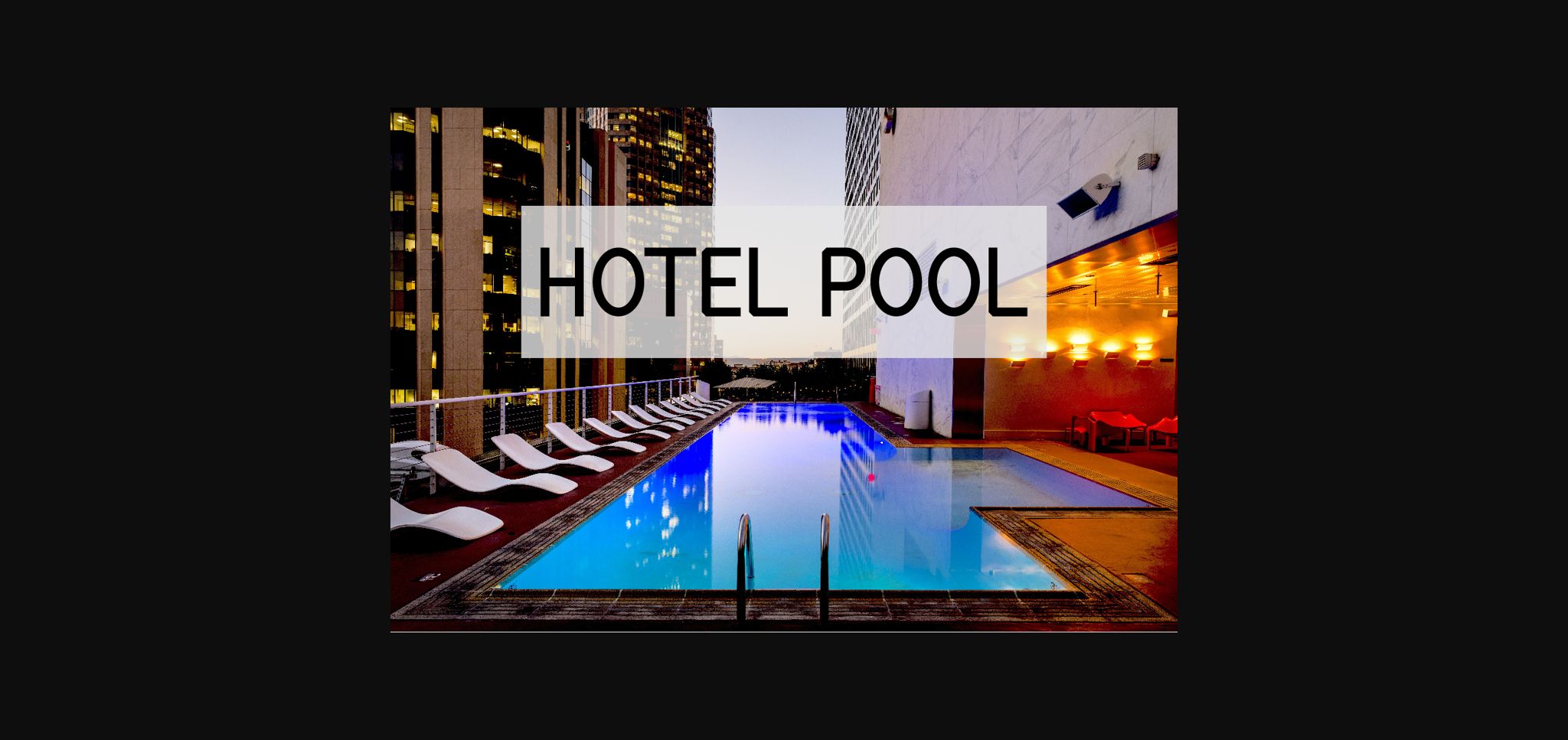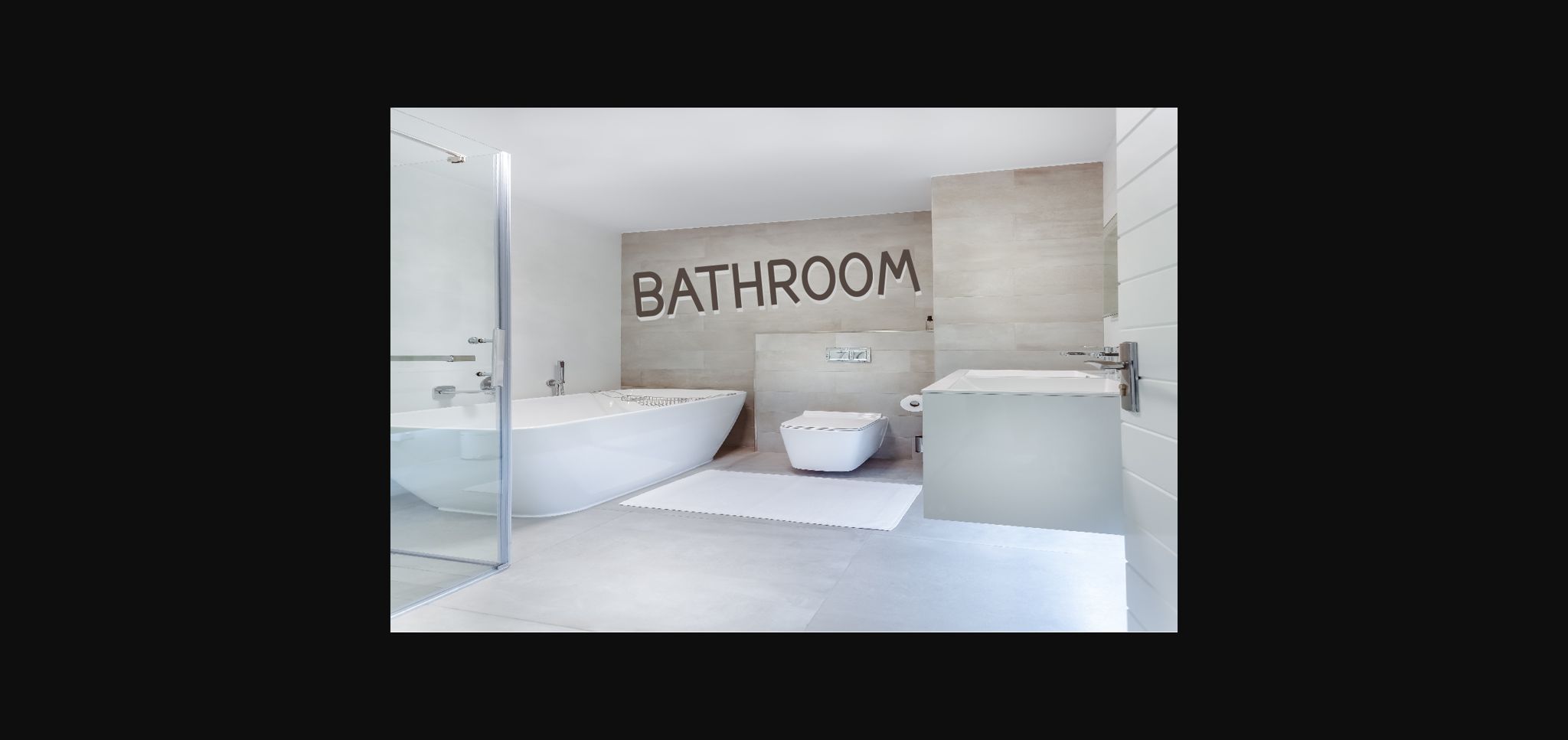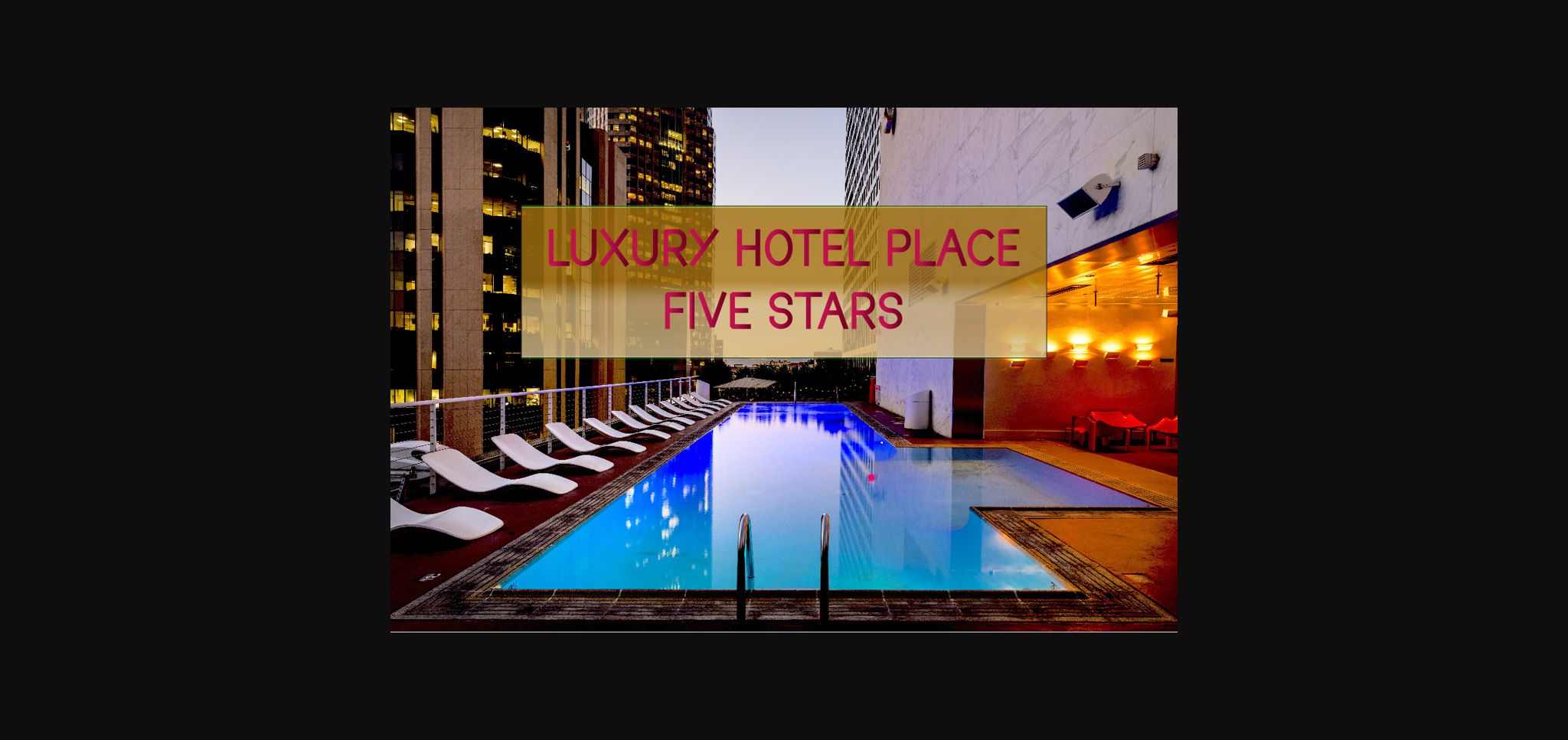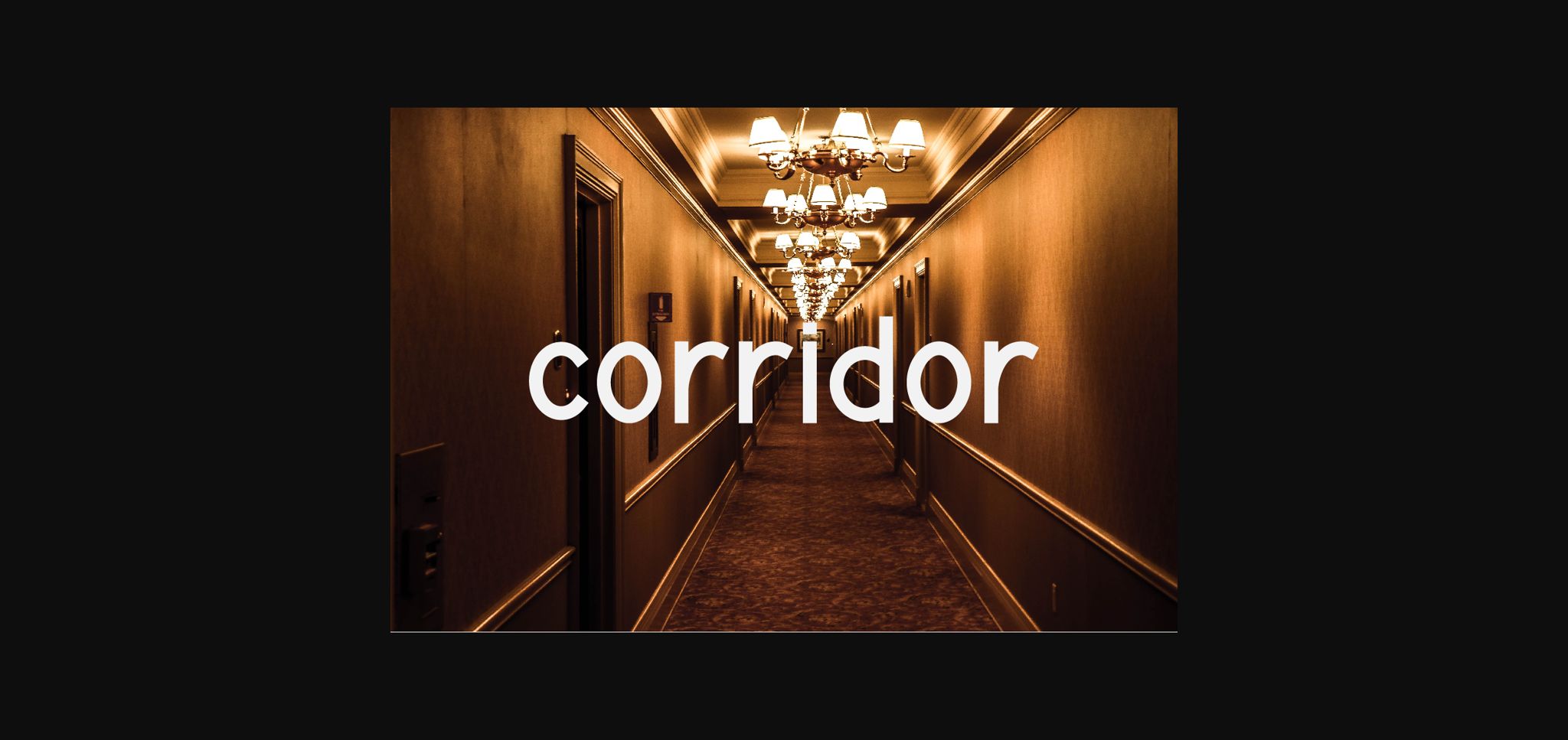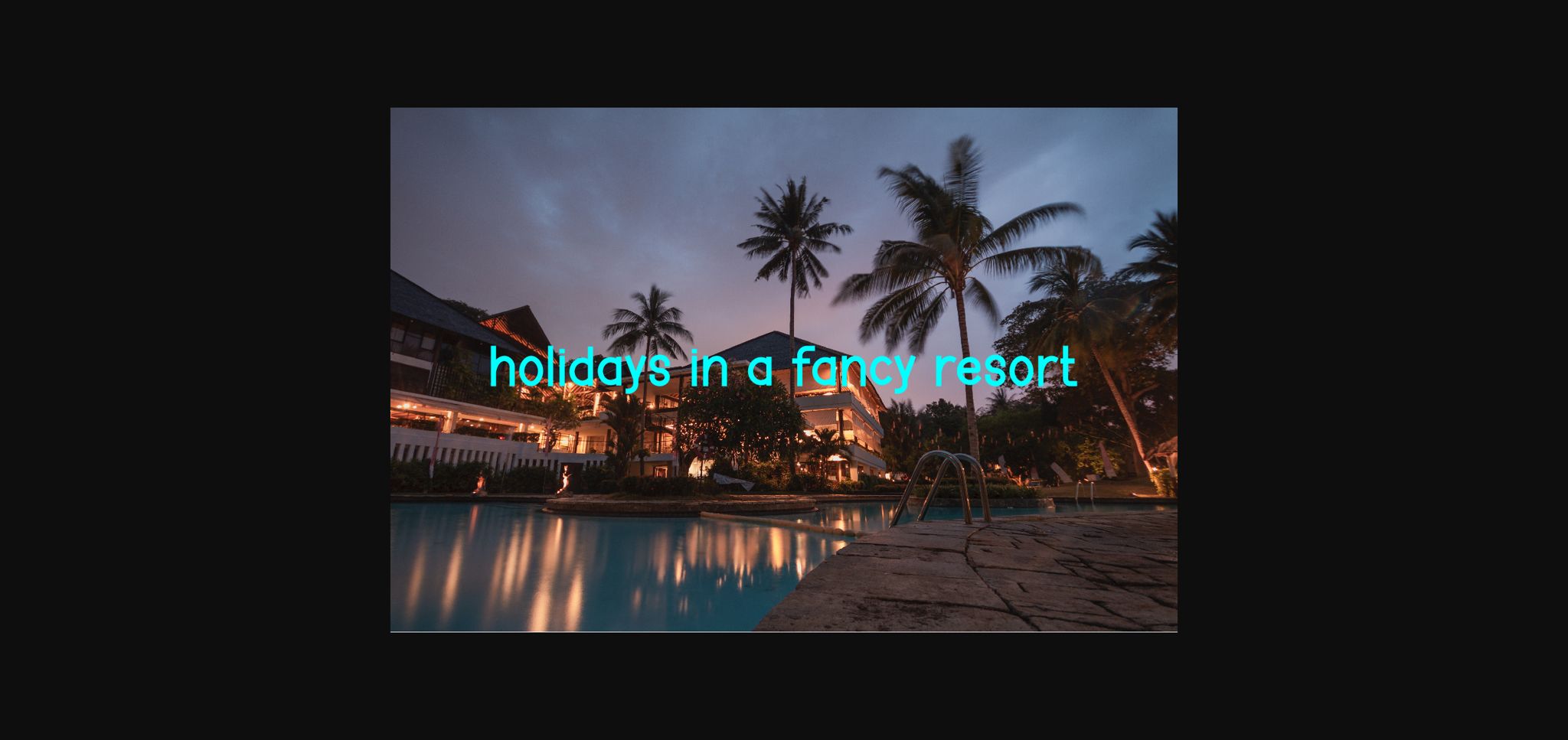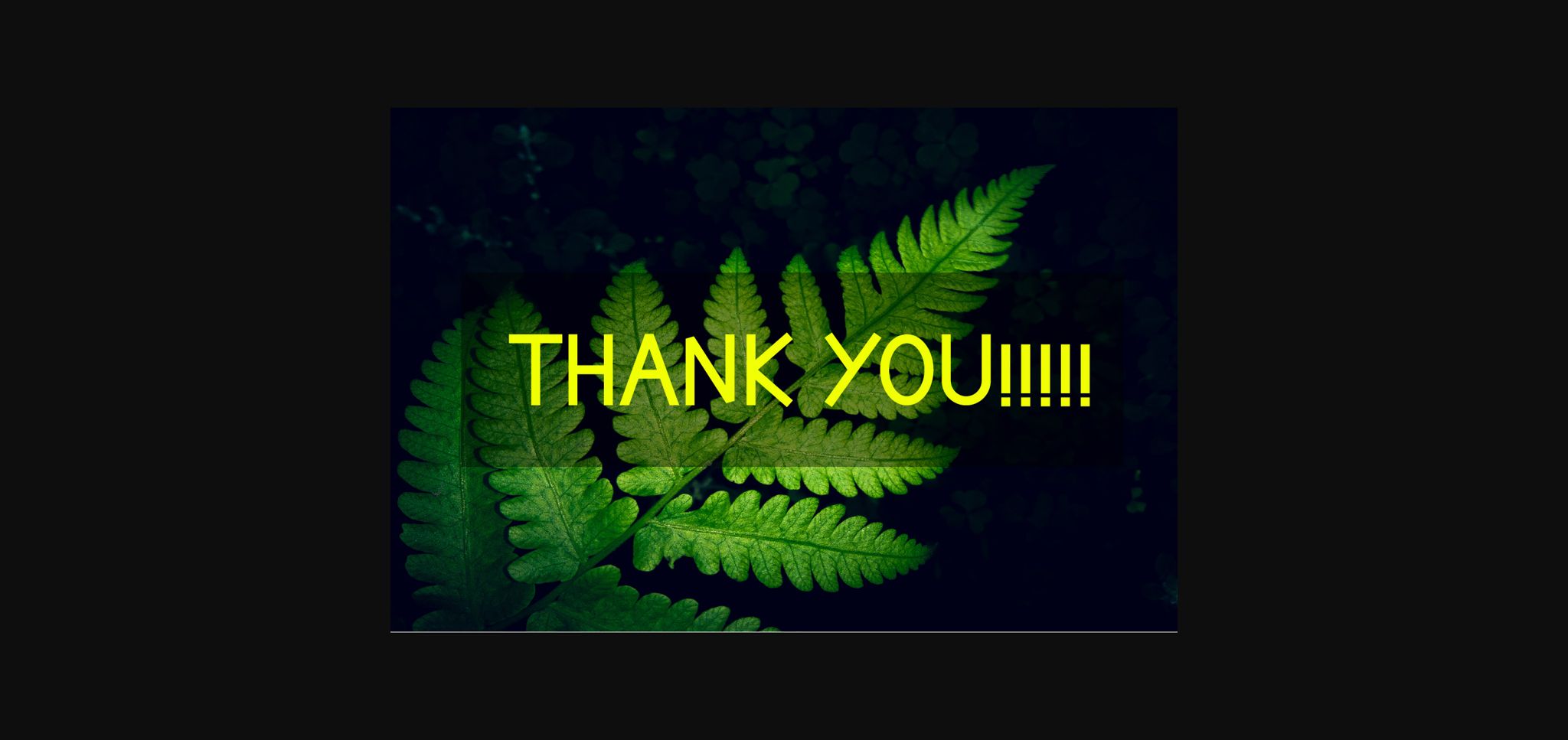
Hotel Pool Font
About Hotel Pool Font
Hotel Pool is a minimal and neat sans serif font. It can easily be matched to an incredibly large set of projects, so add it to your creative ideas and notice how it makes them stand out!